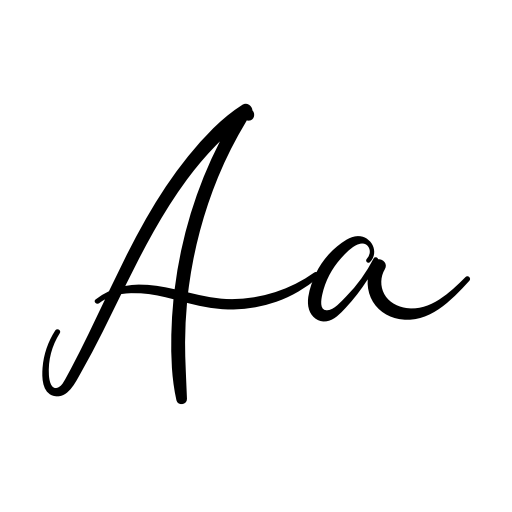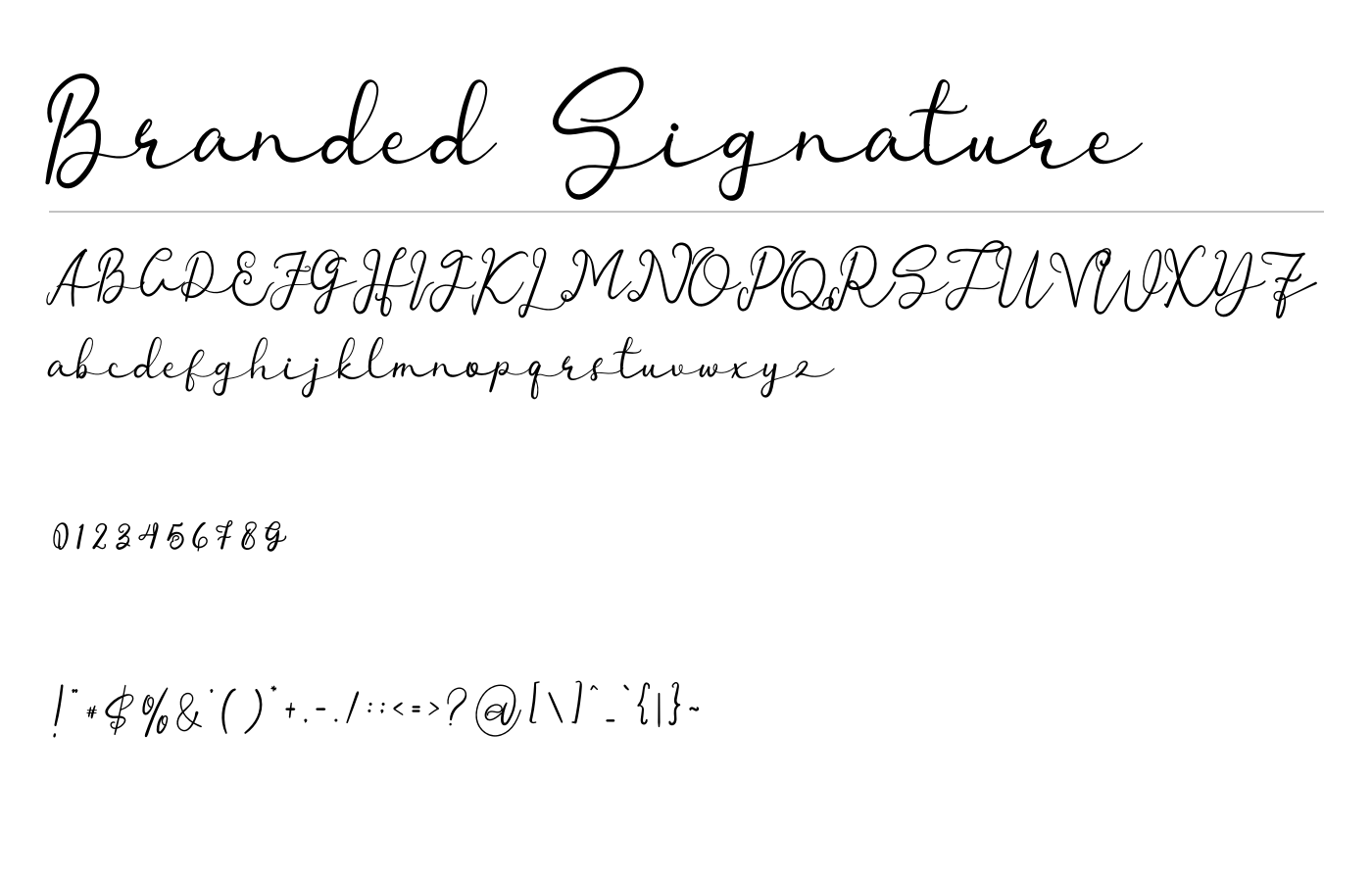
Branded Signature Font is an elegant, handwritten script typeface with a light and airy feel, featuring smooth, flowing strokes that mimic natural penmanship. Its delicate curves and connected letterforms create a stylish yet approachable personality, making it ideal for personal branding, logos, invitations, and sophisticated editorial designs. This font works beautifully where a touch of refinement and individuality is desired, especially in fashion, beauty, and creative industries.
Branded Signature Font
About Branded Signature Font